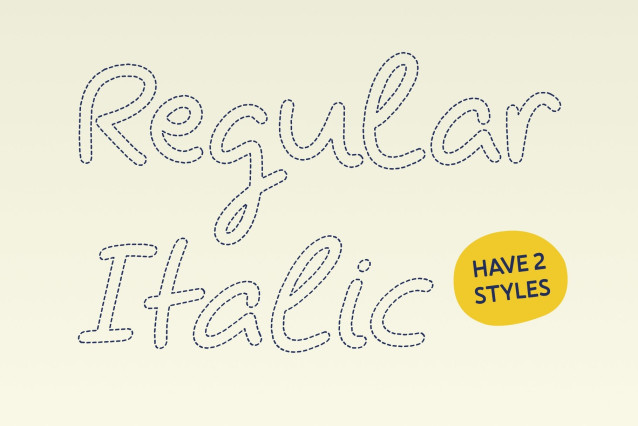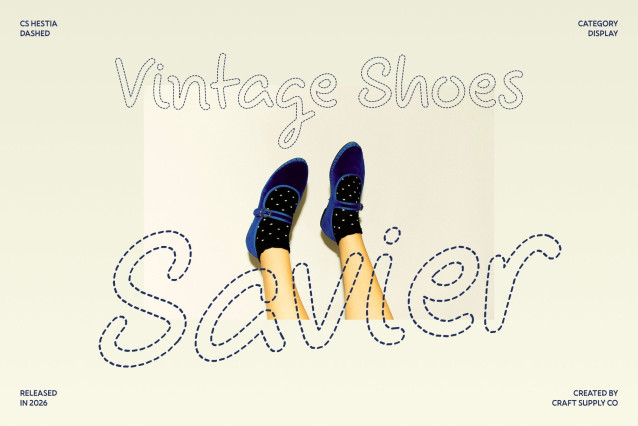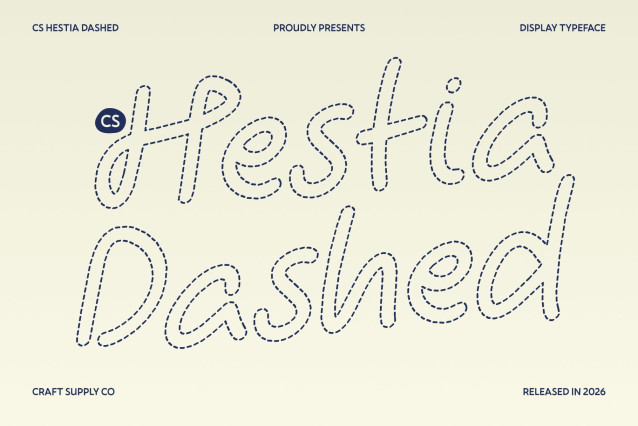
CS Hestia Dashed Font
CS Hestia Dashed – Fun Handwritten Display with Playful Energy
Energetic Handwritten Style with Friendly Charm
This is a lively display font designed to bring playful energy and cheerful personality to your designs. Its friendly handwritten shapes feel approachable and warm, while the dashed strokes add a creative, relaxed texture that makes every word feel fun and expressive.
Quirky Shapes for Playful Visual Expression
The slightly irregular letterforms give this font a charming and spontaneous character. Each shape feels full of motion and personality, creating a dynamic rhythm that captures attention instantly. The dashed style enhances the quirky appeal, making the font feel even more imaginative and lively.
Friendly Handwritten Flow for Approachable Designs
Soft curves and smooth lines ensure readability while maintaining a casual, joyful aesthetic. The broken-line structure adds a handcrafted feel, helping designs feel personal, welcoming, and full of creative spirit.